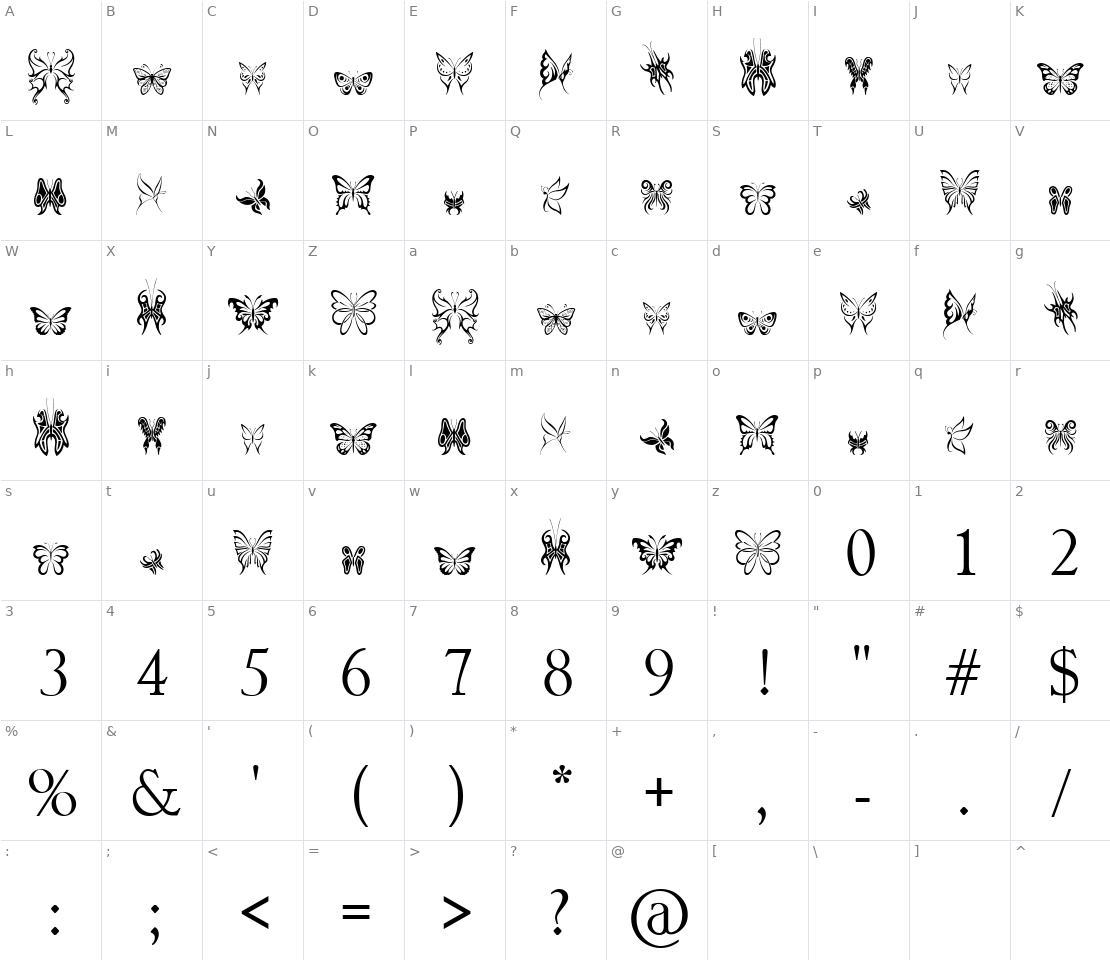
Tribal Butterflies
Tribal Butterflies is a decorative symbol font by Jonathan S. Harris, featuring butterfly designs rendered in bold tribal tattoo linework. Each glyph offers a different stylized butterfly with the sharp curves and pointed symmetry typical of tribal art, making it useful for ornamental borders, nature-themed graphics, tattoo flash sheets, and decorative accents where you want something organic but graphic.